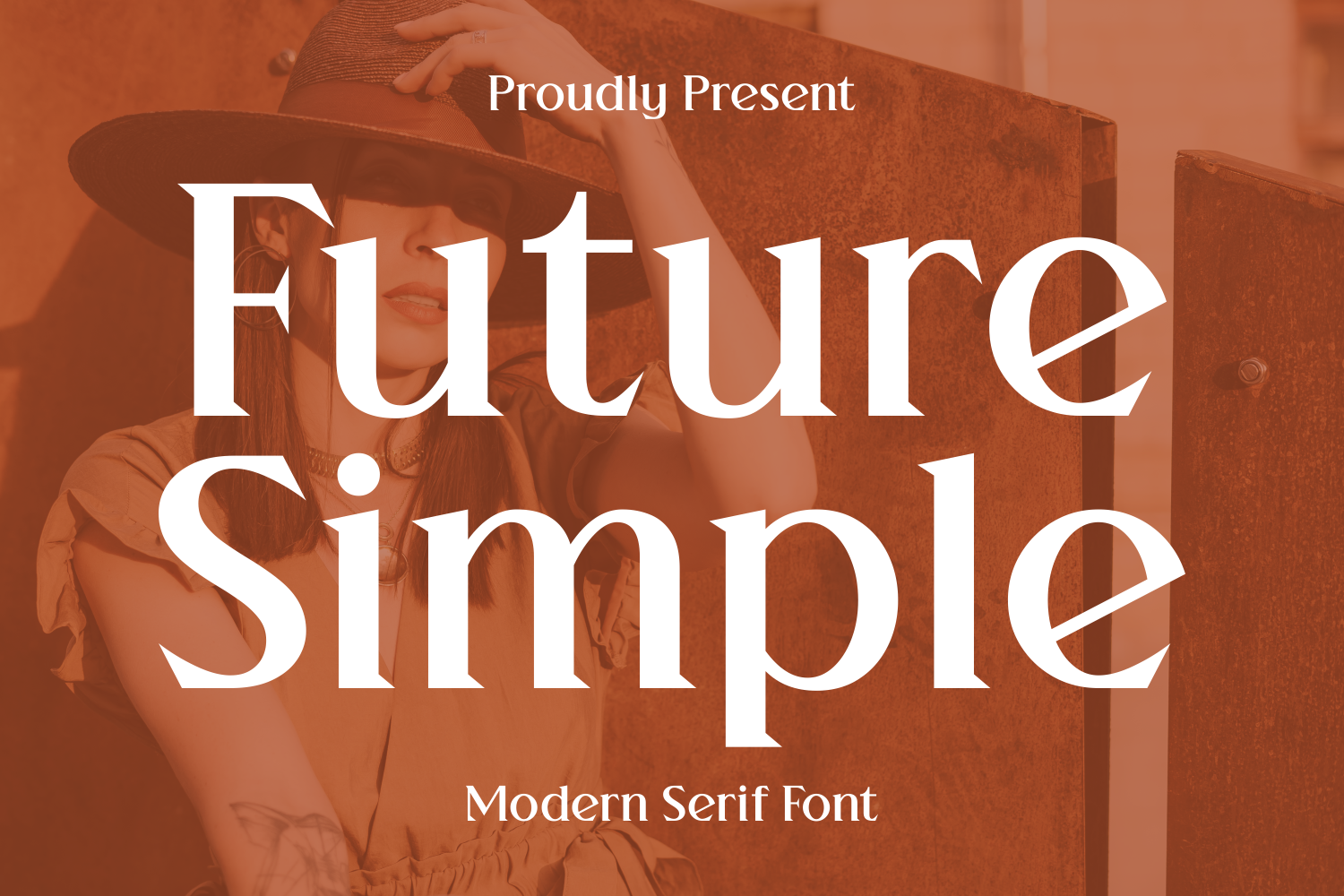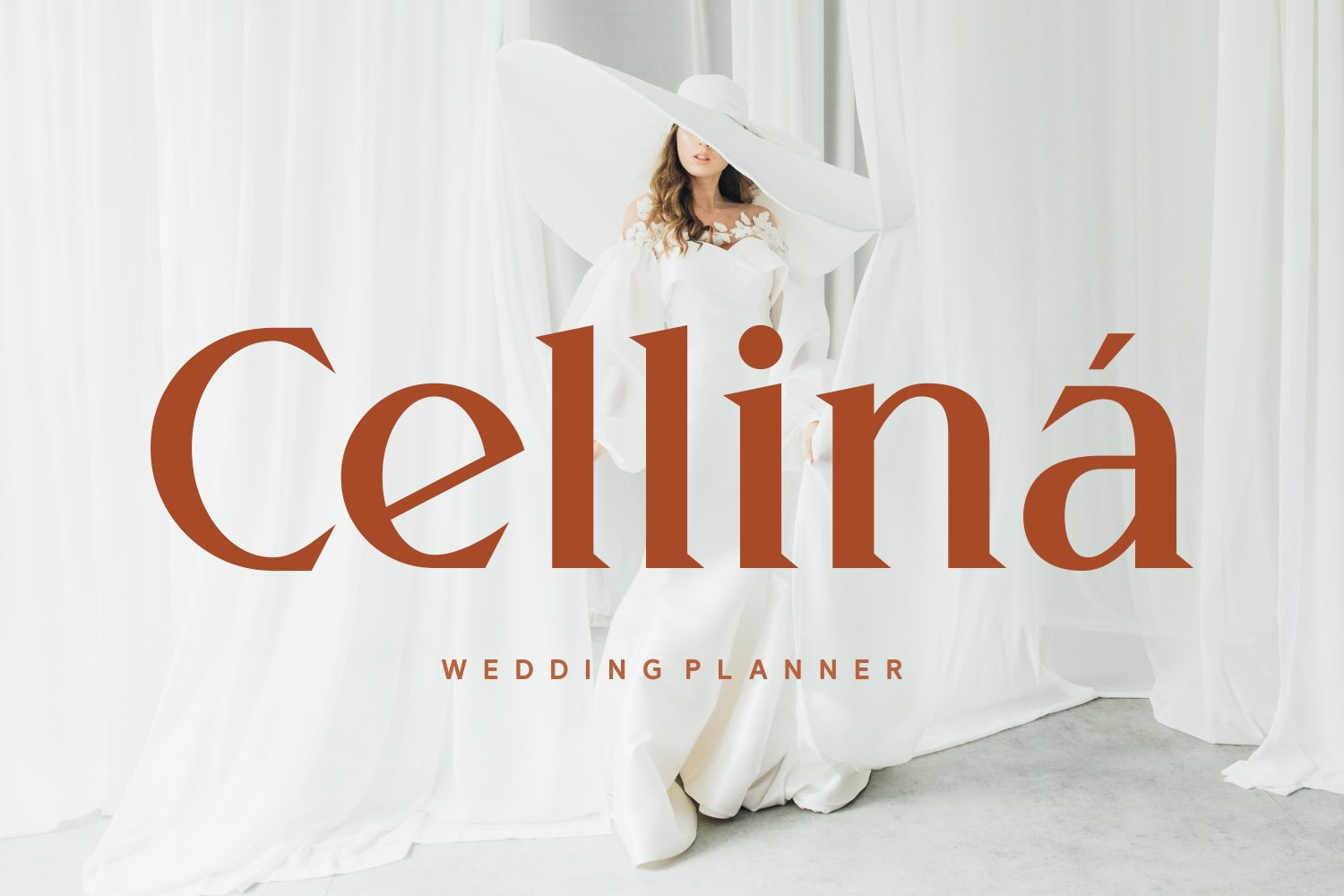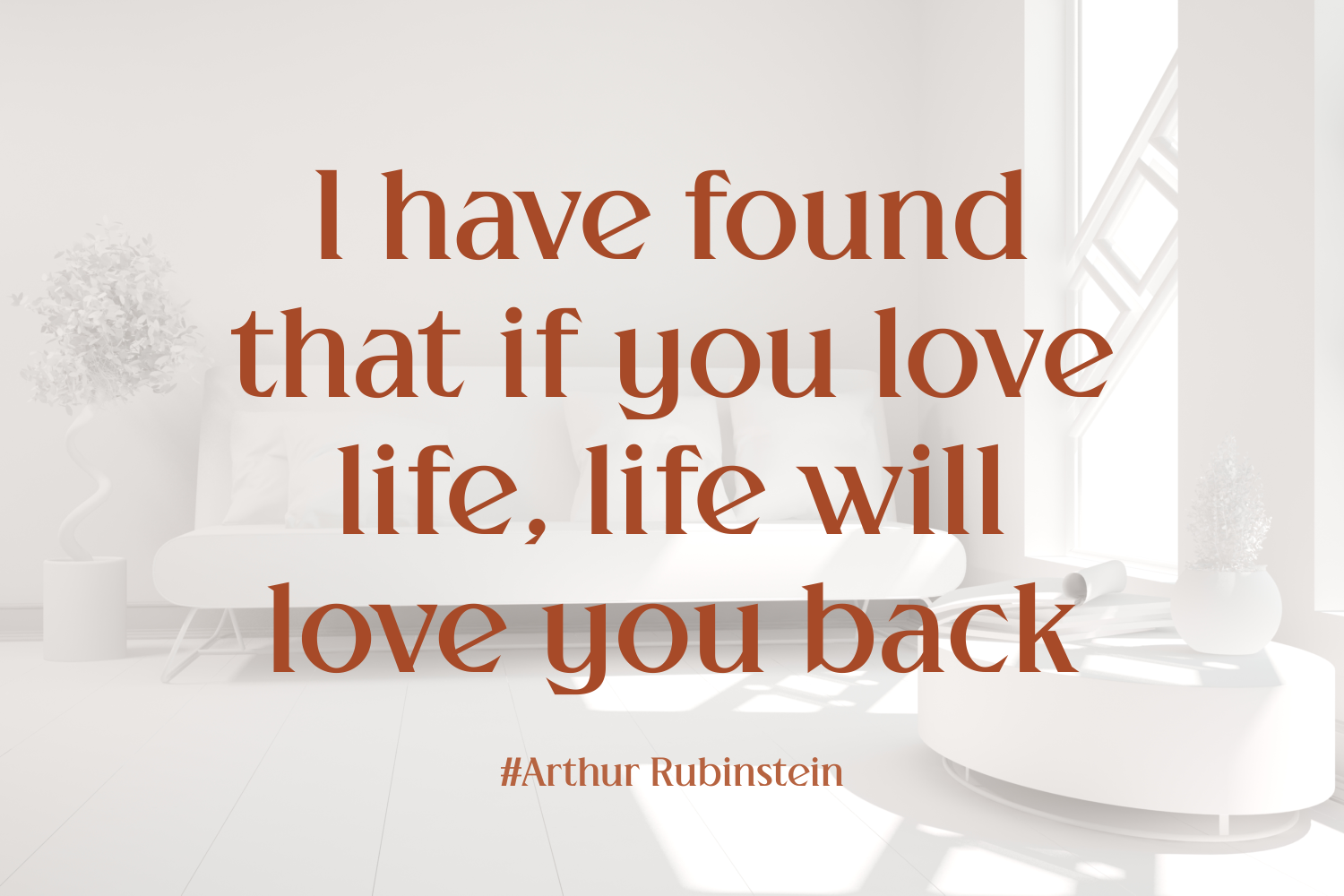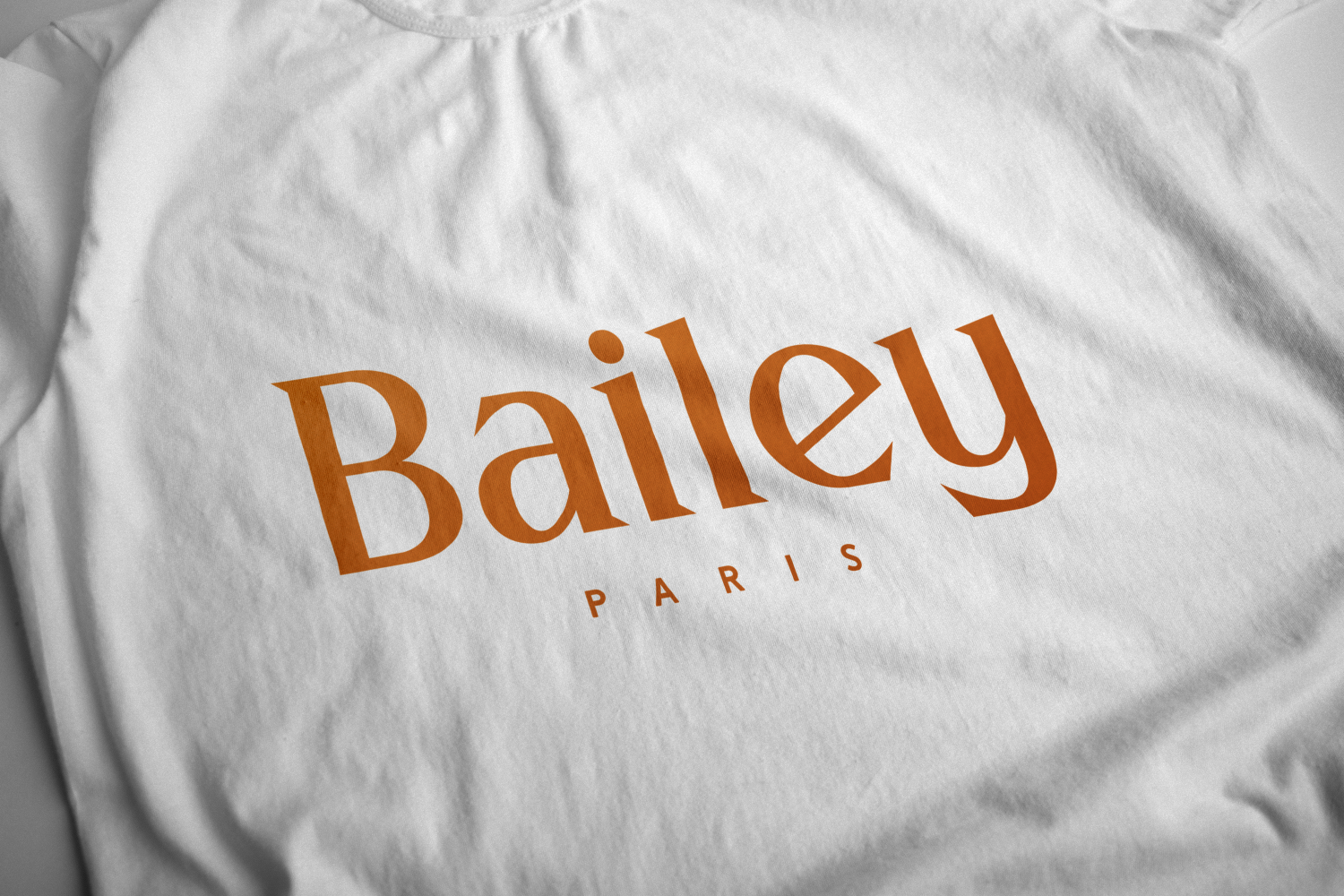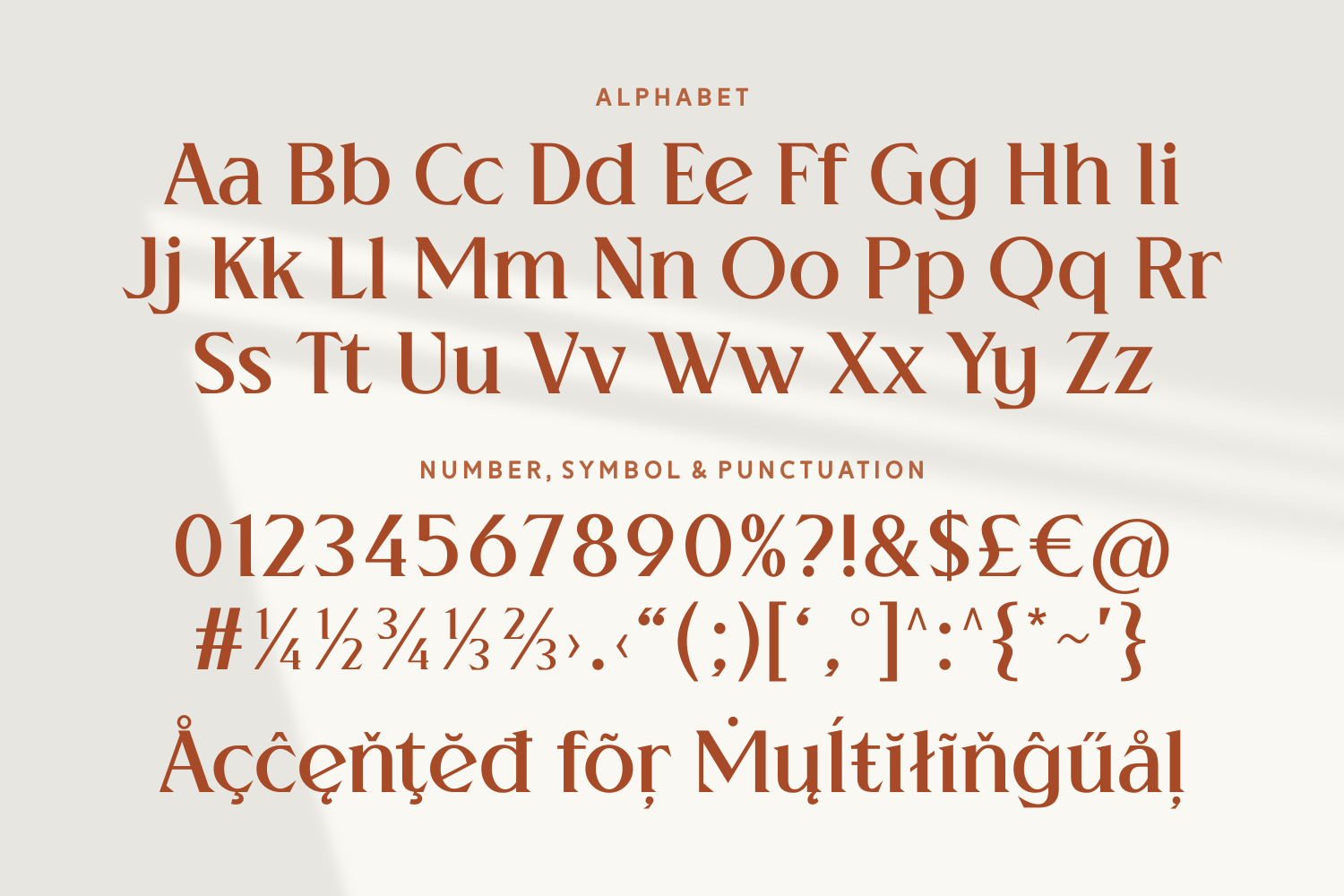
Future Simple
Future Simple is a clean and contemporary serif font that combines minimal elegance with timeless structure. Its sharp edges and versatile form make it suitable for branding, web design, packaging, and modern editorial layouts.